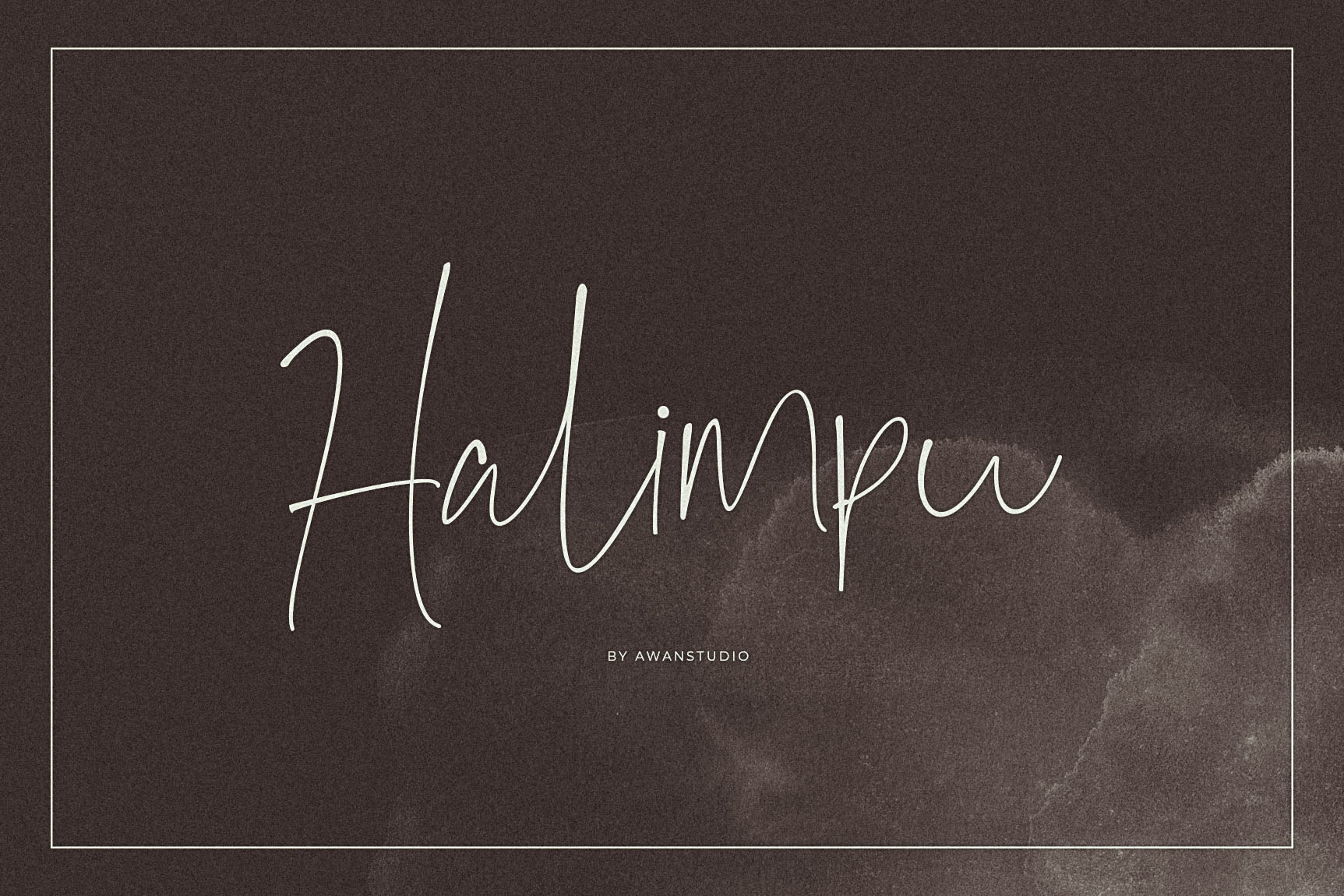
Halimpu | Script Font
Halimpu Script Font! It allows you to create stunning and easy hand-lettering in an instant. Ideal for the logo, quotes, wedding, product label/packaging, fashion, letter, advertising, invitation, poster, merchandise, greeting cards, etc